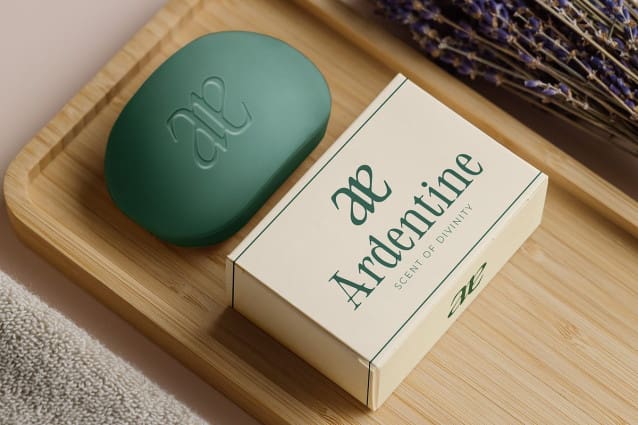
CS Freya Drawn Font
CS Freya Drawn Font is a modern serif font that exquisitely marries the classic elegance of serif typography with the warmth of a handwritten aesthetic. Each letter showcases clean lines and balanced proportions, reflecting a refined sophistication that suits a variety of design contexts. The addition of natural, irregular ornaments imbues the font with a sense of craftsmanship, giving the impression that each character has been lovingly crafted by hand, resulting in a unique and personal touch.
Dynamic Personality with a Drawn Effect The drawn effect enhances CS Freya’s personality, lending depth and vitality to every letter. This lively quality makes the font feel dynamic and engaging, inviting viewers to explore the subtleties of its design. The interplay between traditional serif elements and the playful irregularities of the drawn effect creates a visually captivating experience, ensuring that your text stands out in any application.
Ideal for Elegant and Creative Projects This drawn font is the perfect choice for projects that require an elegant yet understated feel. Its sophisticated design makes it an excellent option for formal invitations, where it can convey a sense of refinement and grace. Additionally, it shines in artistic branding, offering a unique identity that resonates with creativity and originality.